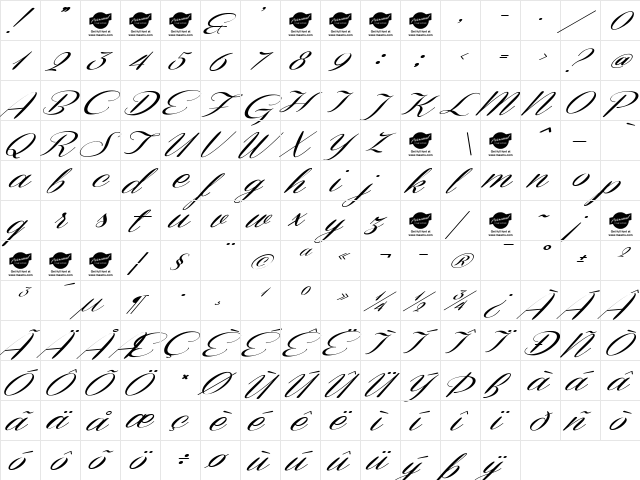
Coneria Script Slanted Demo Regular
| Foundry | M害 Greb䣫 |
| Designer | M害 Greb䣫 |
Design Context for Coneria Script Slanted Demo Typeface
Coneria Script Slanted Demo flows with the natural rhythm of handwritten lettering, making it ideal for designs that call for warmth and personal expression.
Font Pairing: Combine Coneria Script Slanted Demo with a simple geometric sans for maximum contrast — the tension between flowing curves and clean structure is a classic typographic pairing.
Pro Tip: Use Coneria Script Slanted Demo for short runs of text — names, titles, or taglines. Extended body copy in script faces tires the eye quickly.